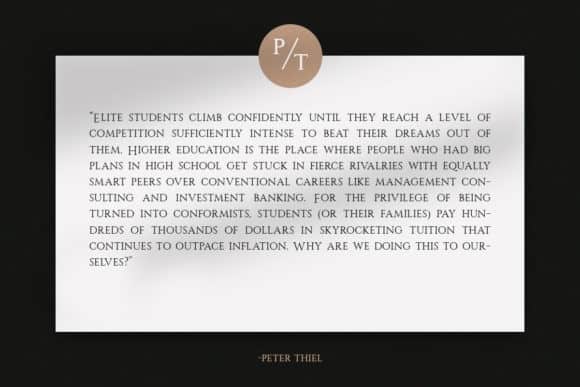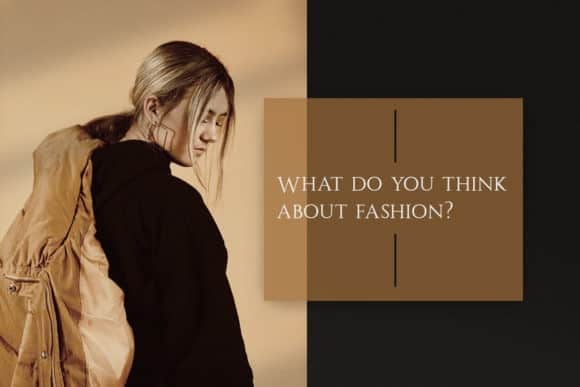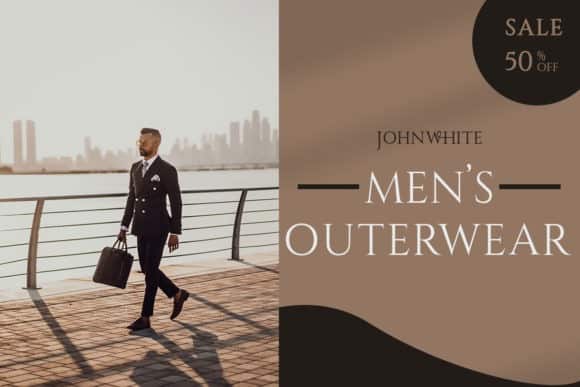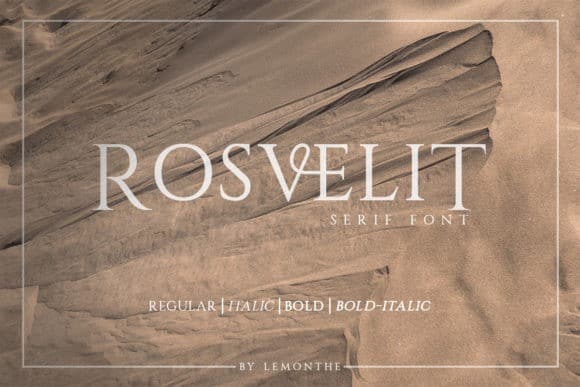
Rosvelit Serif Font
Thanks for checking out Rosvelit Serif Font. Rosvelit is designed to blend classic delicacy with modern rhythm of glyphs to suit any design works. It is a serif font from the designer lemonthe. Rosvelit is a simple yet incredibly elegant serif font. It can easily be matched to an incredibly large set of projects, so add it to your creative ideas and notice how it makes them stand out!